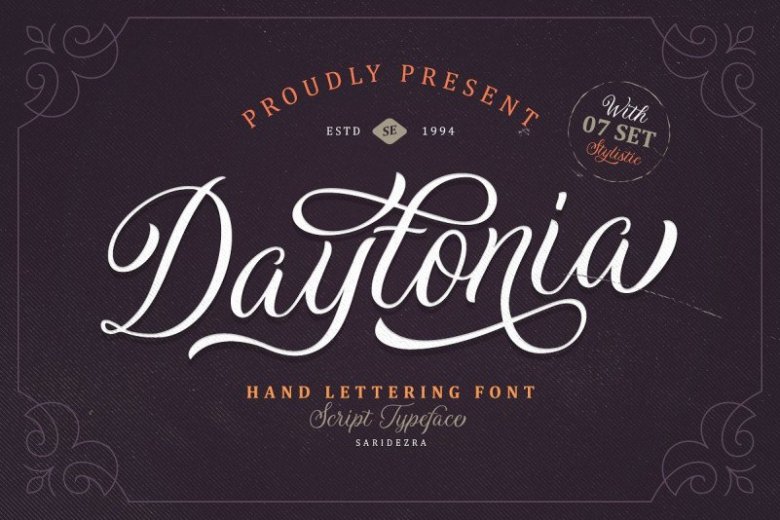
Daytonia Script Font
A new hand lettering script font. Proudly presents latest product Daytonia Font! It is designed and shared by Sarid Ezra. Daytonia Script Font is a handmade script font. You can use this font for every project. Suitable for branding logo, hand lettering, or apparel design. This font also support multilingual, number and symbol, alternates, swash, and underline.